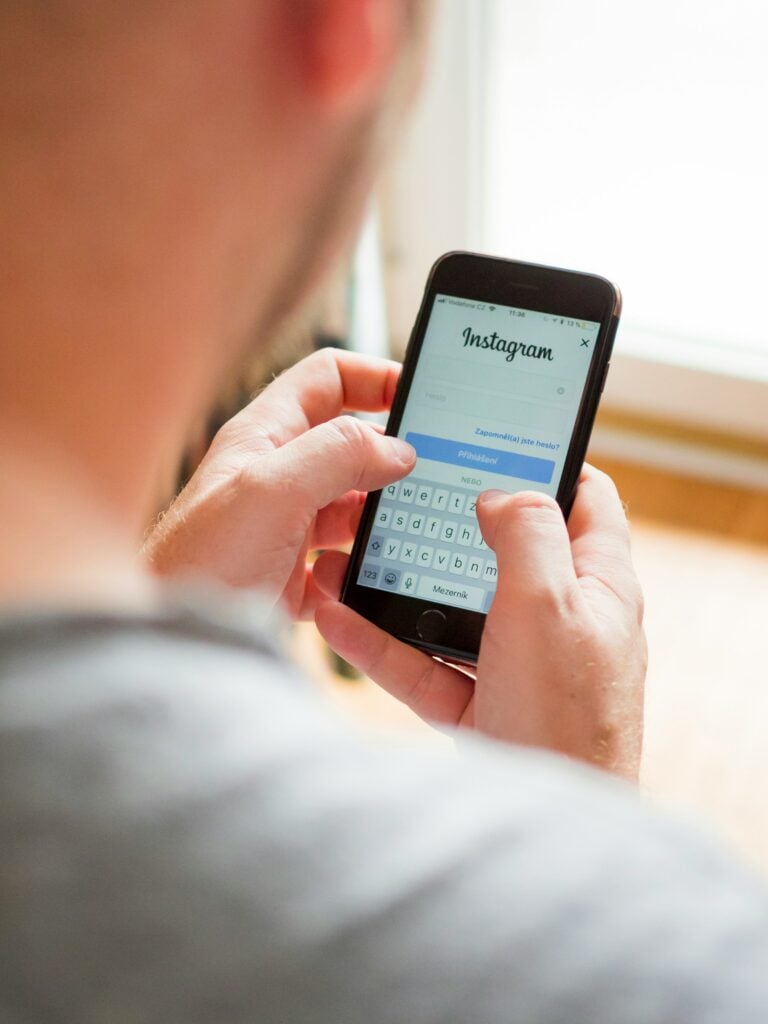
What Font Does Instagram Messages Use . Fonts used on instagram vary depending on. Instagram uses a wide variety of fonts on its platform, so we'll go through each one to help you identify which fonts are used where. Discover the core font proxima nova, the default. The glyph and wordmark inspired this custom style that nods to our heritage. Instagram stories are an important part of building a brand or personal presence. Learn about the fonts instagram uses in its logo, interface, and stories, and how they reflect its brand evolution and identity. Instagram sans is our new, global typeface. Whether you’re posting a promotion, sharing an. Proxima nova, neue helvetica, and san francisco. Learn about the different fonts used by instagram for various purposes, such as proxima nova, roboto, san francisco, and instagram sans. On the web, instagram uses proxima nova for its text. Find out how to change your. The main font used by instagram is instagram sans, reflecting the brand’s commitment to simplicity and craftsmanship.
Instagram uses a wide variety of fonts on its platform, so we'll go through each one to help you identify which fonts are used where. Proxima nova, neue helvetica, and san francisco. Find out how to change your. Discover the core font proxima nova, the default. The main font used by instagram is instagram sans, reflecting the brand’s commitment to simplicity and craftsmanship. Learn about the fonts instagram uses in its logo, interface, and stories, and how they reflect its brand evolution and identity. Instagram sans is our new, global typeface. On the web, instagram uses proxima nova for its text. The glyph and wordmark inspired this custom style that nods to our heritage. Whether you’re posting a promotion, sharing an.
What Font Does Instagram Messages Use Discover the core font proxima nova, the default. The glyph and wordmark inspired this custom style that nods to our heritage. The main font used by instagram is instagram sans, reflecting the brand’s commitment to simplicity and craftsmanship. Discover the core font proxima nova, the default. Instagram stories are an important part of building a brand or personal presence. On the web, instagram uses proxima nova for its text. Instagram uses a wide variety of fonts on its platform, so we'll go through each one to help you identify which fonts are used where. Learn about the fonts instagram uses in its logo, interface, and stories, and how they reflect its brand evolution and identity. Whether you’re posting a promotion, sharing an. Proxima nova, neue helvetica, and san francisco. Find out how to change your. Instagram sans is our new, global typeface. Learn about the different fonts used by instagram for various purposes, such as proxima nova, roboto, san francisco, and instagram sans. Fonts used on instagram vary depending on.
What Font Is Imessage A Beginner's Guide What Font Does Instagram Messages Use Instagram stories are an important part of building a brand or personal presence. Learn about the fonts instagram uses in its logo, interface, and stories, and how they reflect its brand evolution and identity. The glyph and wordmark inspired this custom style that nods to our heritage. Discover the core font proxima nova, the default. Find out how to change. What Font Does Instagram Messages Use.
How to react to messages on Instagram? What Font Does Instagram Messages Use On the web, instagram uses proxima nova for its text. Learn about the fonts instagram uses in its logo, interface, and stories, and how they reflect its brand evolution and identity. Instagram uses a wide variety of fonts on its platform, so we'll go through each one to help you identify which fonts are used where. Proxima nova, neue helvetica,. What Font Does Instagram Messages Use.
Instagram Story Font Download Driver Download For Windows & Mac What Font Does Instagram Messages Use Find out how to change your. Proxima nova, neue helvetica, and san francisco. Instagram sans is our new, global typeface. The glyph and wordmark inspired this custom style that nods to our heritage. The main font used by instagram is instagram sans, reflecting the brand’s commitment to simplicity and craftsmanship. Discover the core font proxima nova, the default. On the. What Font Does Instagram Messages Use.
Chatbot sur Instagram boostez votre business tolk.ai Generative What Font Does Instagram Messages Use Instagram sans is our new, global typeface. Learn about the fonts instagram uses in its logo, interface, and stories, and how they reflect its brand evolution and identity. Discover the core font proxima nova, the default. Proxima nova, neue helvetica, and san francisco. Find out how to change your. Fonts used on instagram vary depending on. The glyph and wordmark. What Font Does Instagram Messages Use.
Tuyển chọn 777 Font Instagram typewriter Miễn phí và dễ sử dụng What Font Does Instagram Messages Use Find out how to change your. On the web, instagram uses proxima nova for its text. Learn about the different fonts used by instagram for various purposes, such as proxima nova, roboto, san francisco, and instagram sans. Fonts used on instagram vary depending on. Instagram stories are an important part of building a brand or personal presence. Learn about the. What Font Does Instagram Messages Use.
What font does Instagram app use? What Font Does Instagram Messages Use Learn about the different fonts used by instagram for various purposes, such as proxima nova, roboto, san francisco, and instagram sans. Instagram stories are an important part of building a brand or personal presence. The glyph and wordmark inspired this custom style that nods to our heritage. Whether you’re posting a promotion, sharing an. Instagram sans is our new, global. What Font Does Instagram Messages Use.
What Font Does Instagram Use? A Detailed Look at Typography on the What Font Does Instagram Messages Use Learn about the fonts instagram uses in its logo, interface, and stories, and how they reflect its brand evolution and identity. Instagram sans is our new, global typeface. Whether you’re posting a promotion, sharing an. On the web, instagram uses proxima nova for its text. Learn about the different fonts used by instagram for various purposes, such as proxima nova,. What Font Does Instagram Messages Use.
What Font Does Instagram Use? TechCult What Font Does Instagram Messages Use Instagram sans is our new, global typeface. Discover the core font proxima nova, the default. Learn about the fonts instagram uses in its logo, interface, and stories, and how they reflect its brand evolution and identity. The main font used by instagram is instagram sans, reflecting the brand’s commitment to simplicity and craftsmanship. Fonts used on instagram vary depending on.. What Font Does Instagram Messages Use.